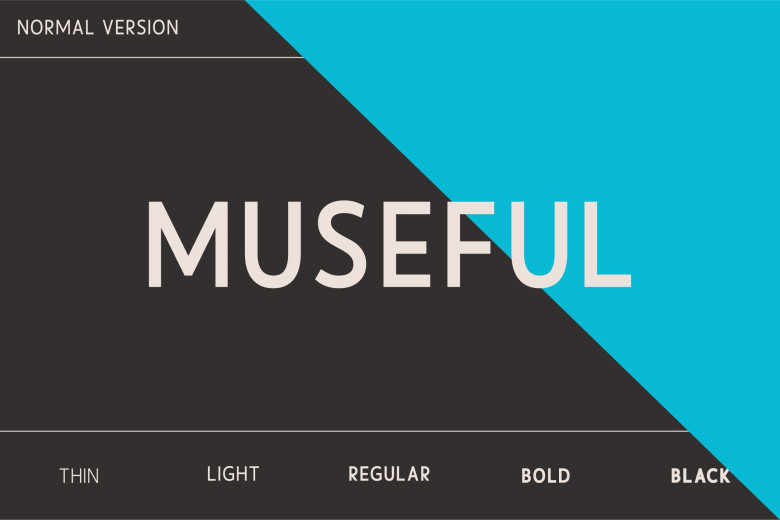
Museful Font
Museful font was inspired by the imperfect grotesque lettering found on early 1900s movie theater programs, combining luxury and modernity into its 5 weights. Crafted with precision for any project from film posters to magazines or logos; discover this font’s perfect mix of elegance and simplicity for timeless charm designs.
Museful Sans Serif Font Family